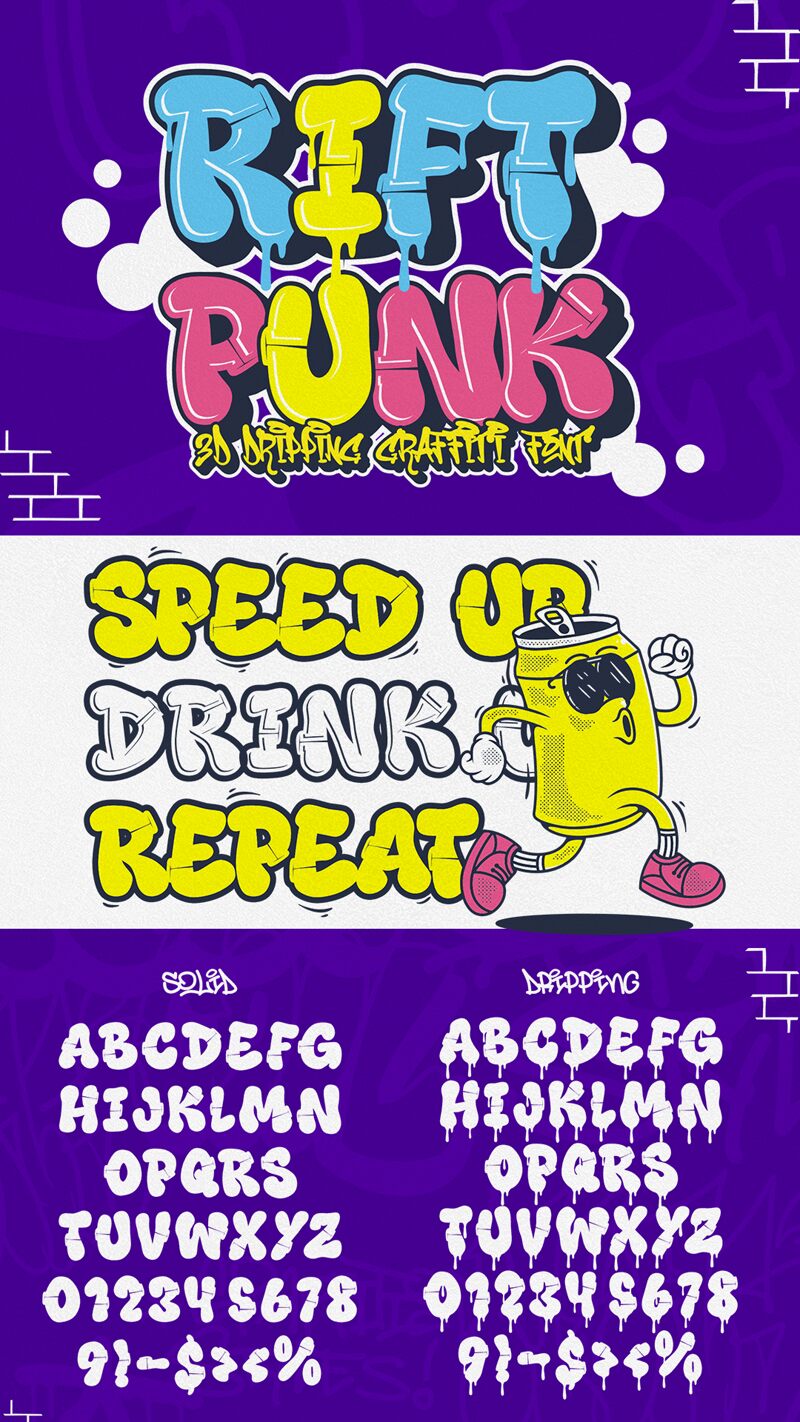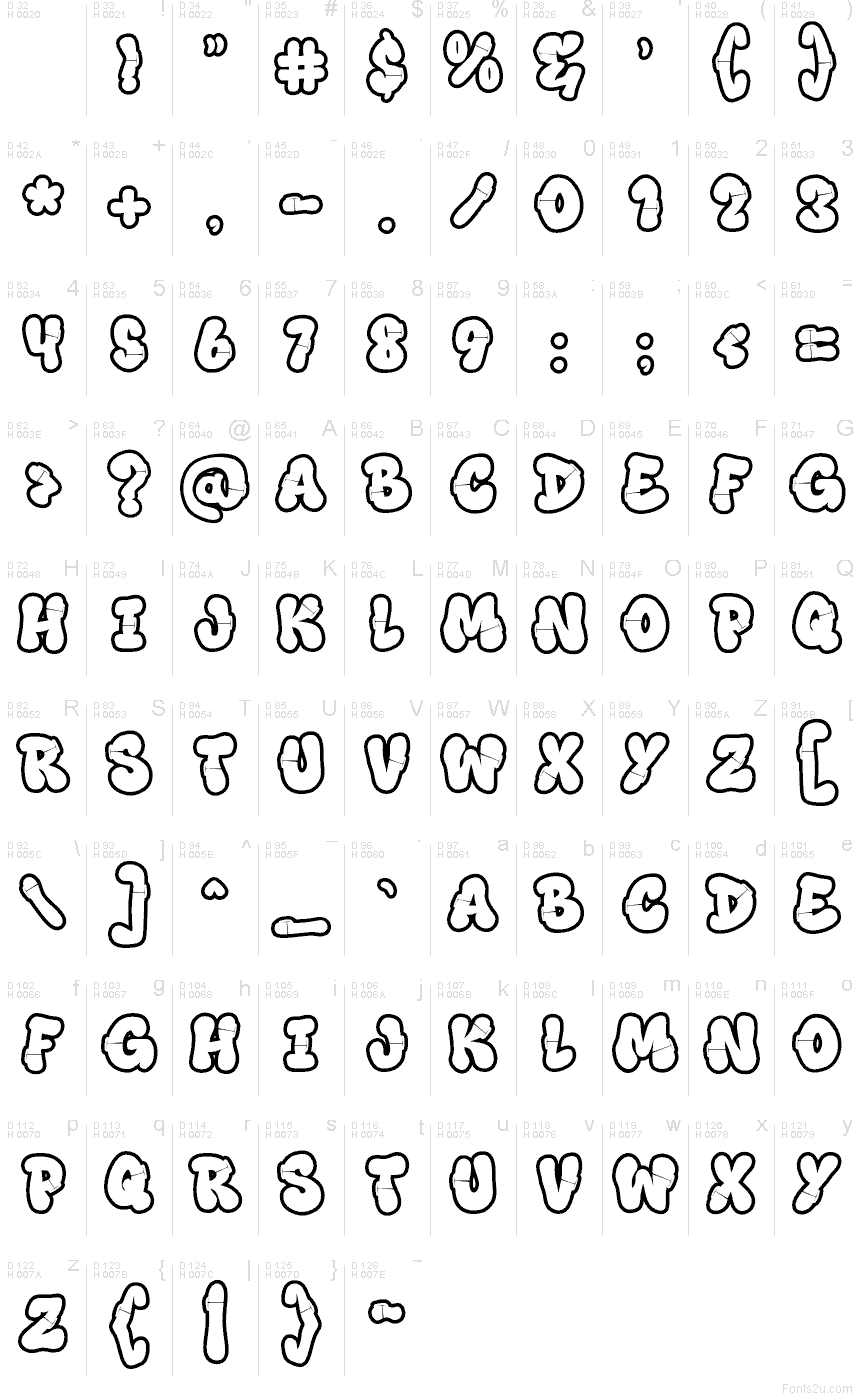
Rift Punk Outline font by Muhammad Panji Ramdhani of Cikareotype is a free graffiti font in the Rift Punk family, drawn as puffy bubble letters with a clean outline that reads like fresh marker ink on a white wall. The chunky curves and roomy spacing keep it loud without getting messy, so your words stay legible even when they’re shouting.
Using Rift Punk Outline works beautifully for streetwear logos, skate posters, album covers, YouTube thumbnails, sticker packs, event flyers, and playful packaging. Try it big with generous tracking for maximum bounce, then pair it with a plain condensed sans for details-this free font handles the attitude while the other typeface carries the info.